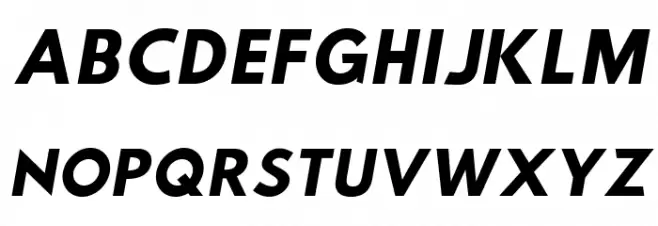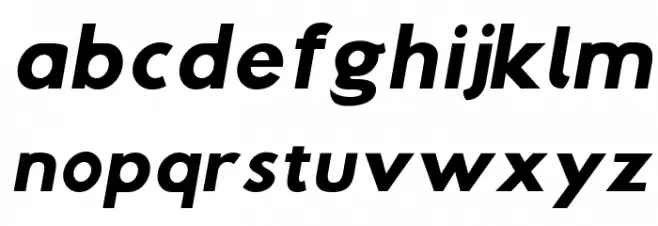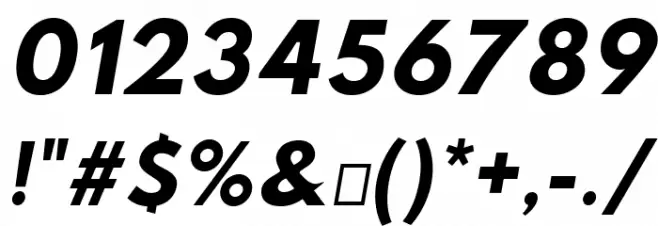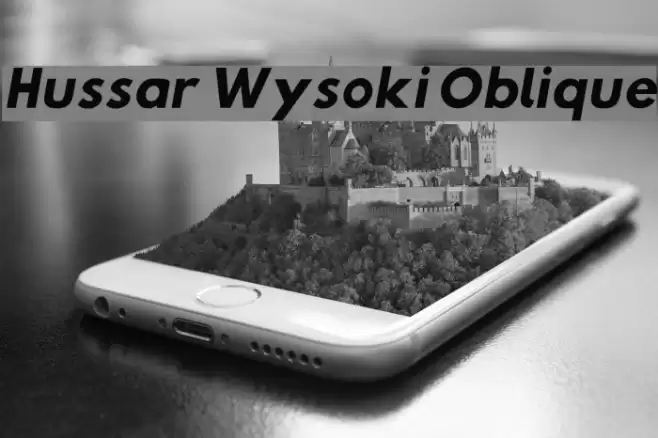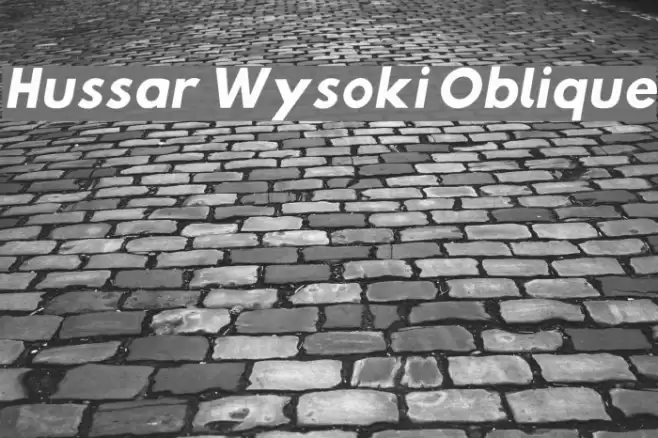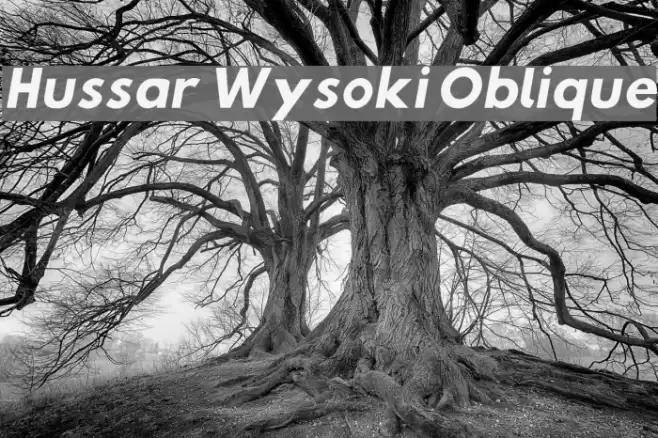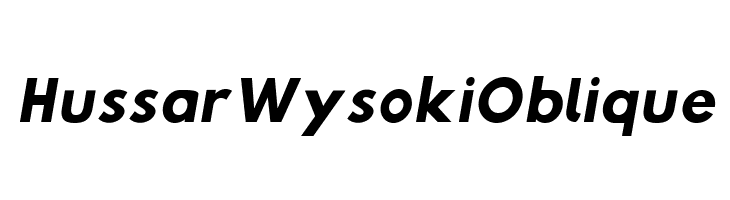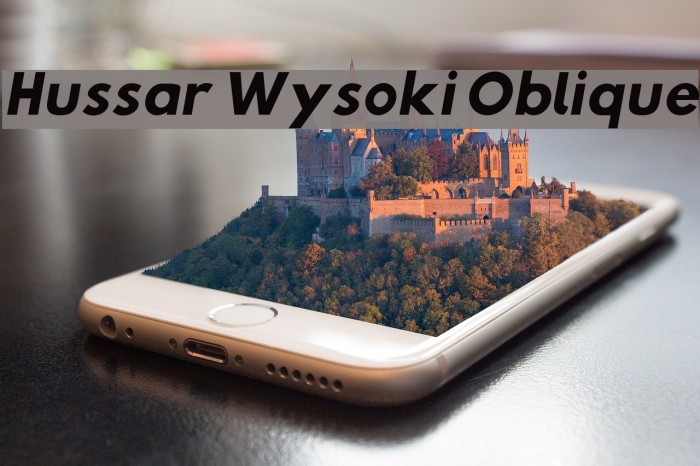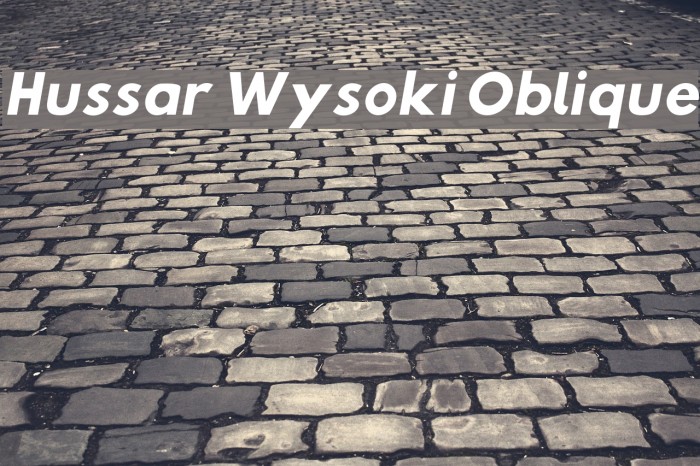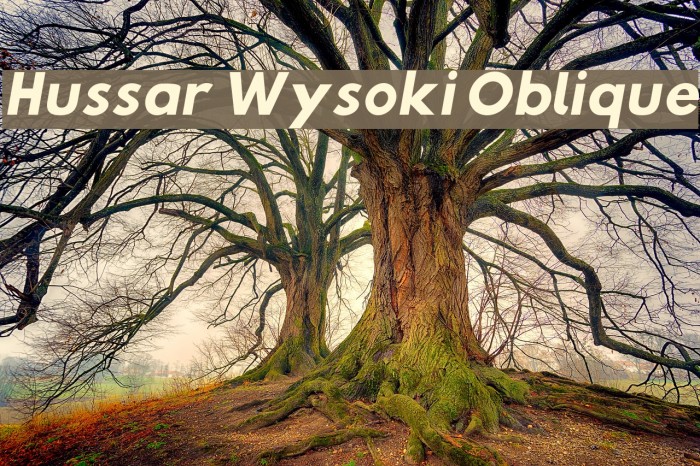
Hussar Wysoki Oblique
This font features a bold and dynamic style with a distinct oblique slant, giving it a sense of movement and modernity. The characters are well-defined with a consistent stroke width, contributing to a clean and professional appearance. The uppercase letters are strong and commanding, while the lowercase letters maintain readability with a slightly rounded form. The numerals are clear and straightforward, making them suitable for various applications. Special characters are included, enhancing the font's versatility for different design needs.
A bold, oblique font with a modern and dynamic style.
- Proposed Projects: Ideal for branding, advertising, and editorial design where a modern and bold statement is needed.
- Use Case: Headlines, Logos, Advertising